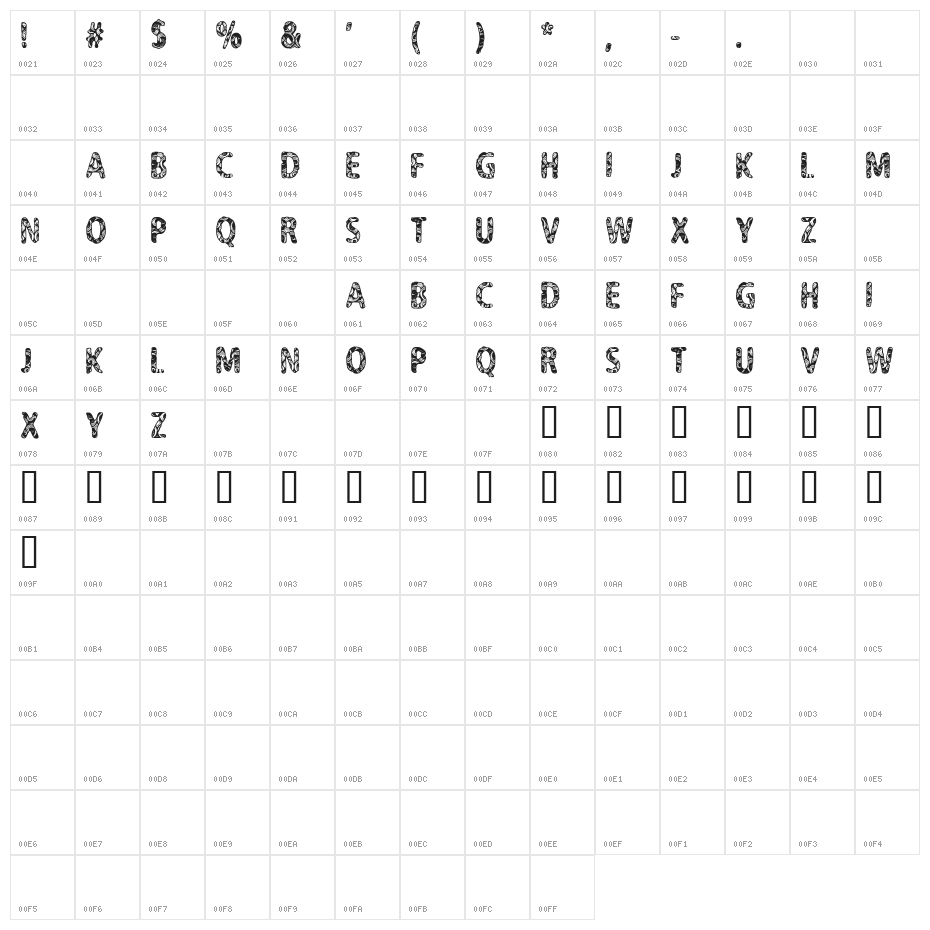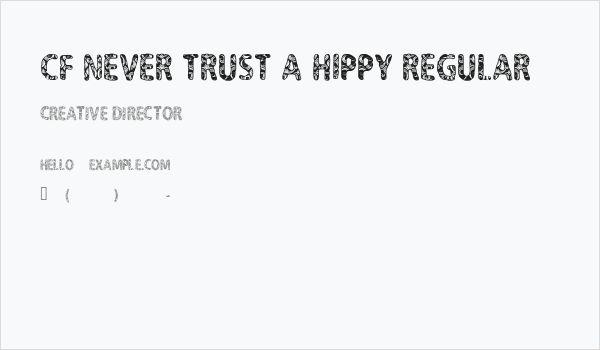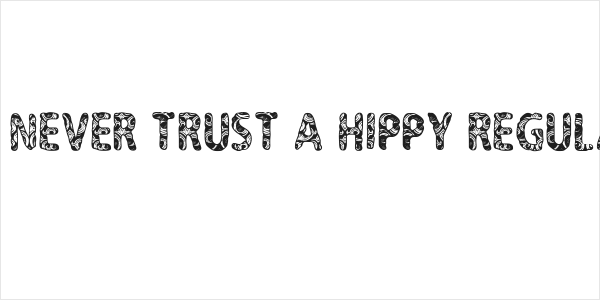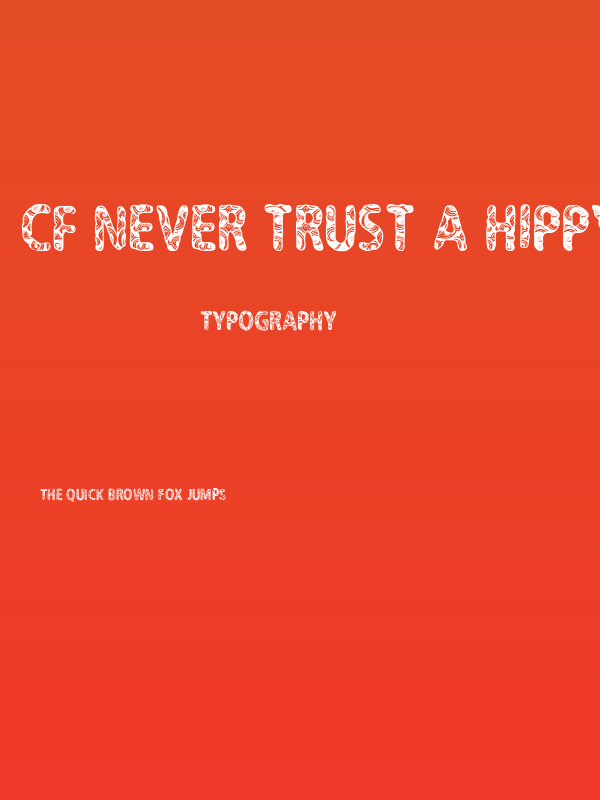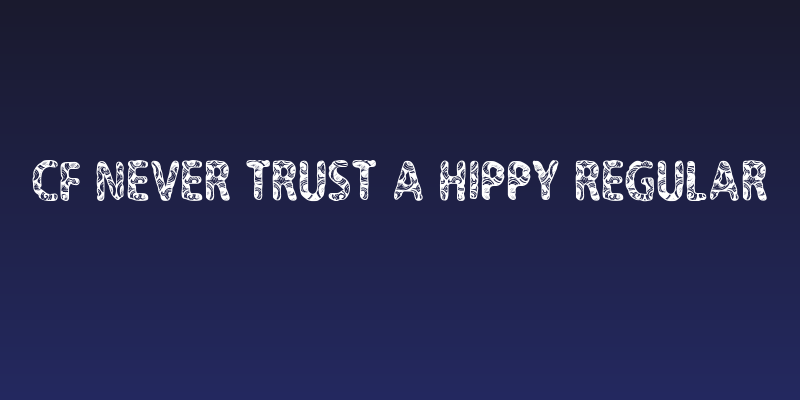
CF Never Trust A Hippy Regular Font
CF Never Trust A Hippy Regular Description
This font features a bold and decorative style with intricate patterns filling each character. The letters are uppercase, with a playful and artistic design that gives a unique, eye-catching appearance. The patterns within the letters resemble swirling, abstract shapes, adding a sense of movement and creativity. This font is ideal for projects that require a standout, artistic touch, such as posters, album covers, or any design that aims to capture attention with its bold and decorative flair.
| Proposed Projects | Ideal for posters, album covers, artistic projects, and any design needing a bold, decorative touch. |